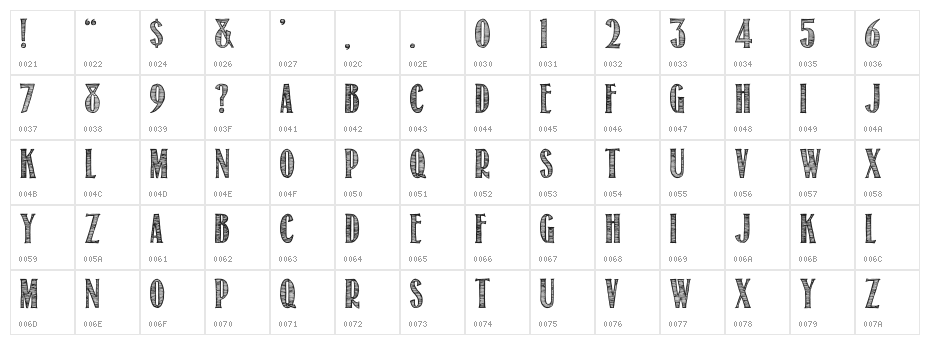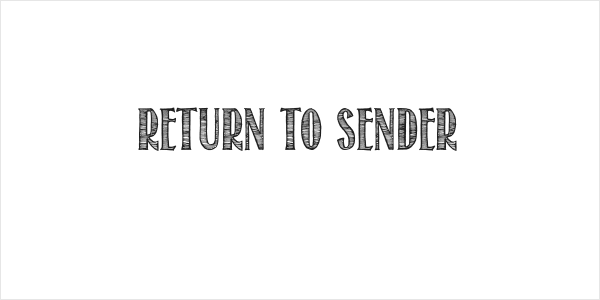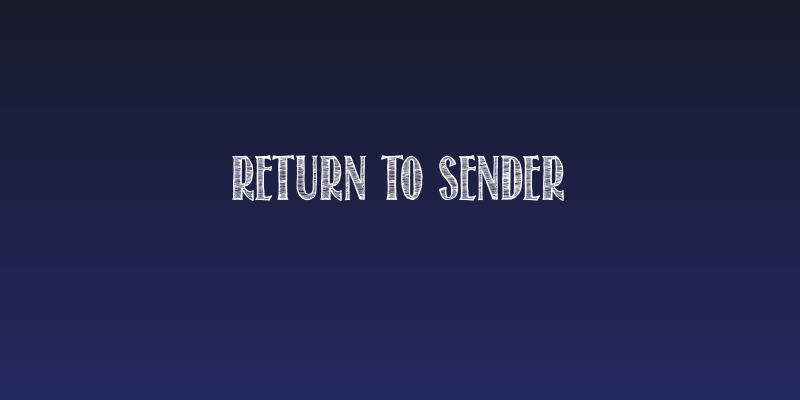
Return To Sender Font
| Vorgeschlagene Projekte | Ideal for creative projects such as posters, invitations, and branding that require a handcrafted, artistic touch. |